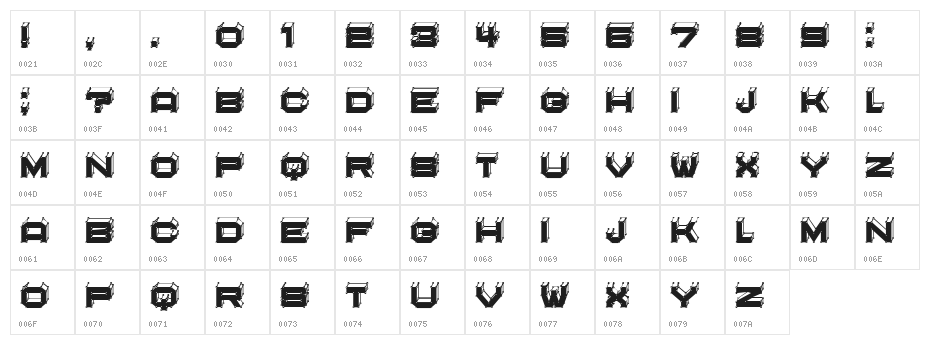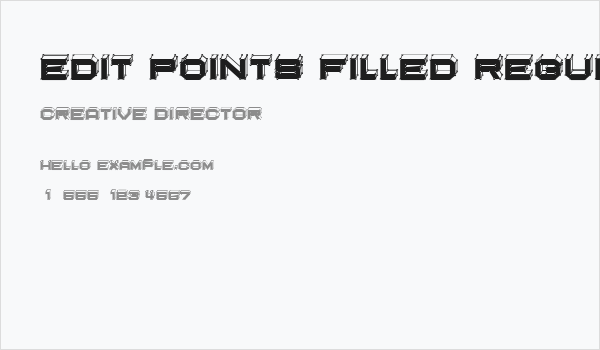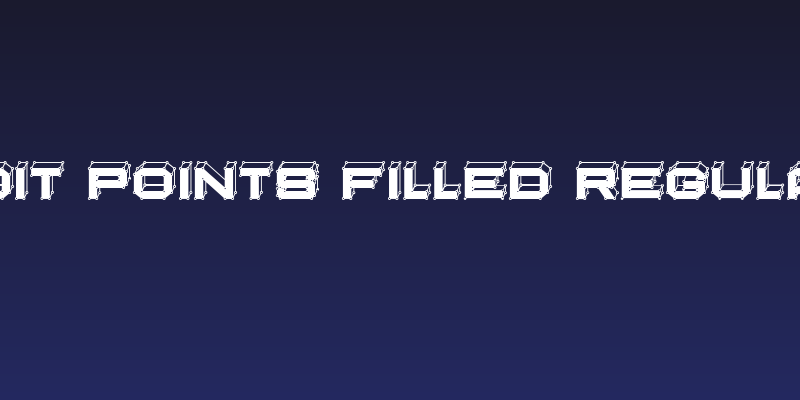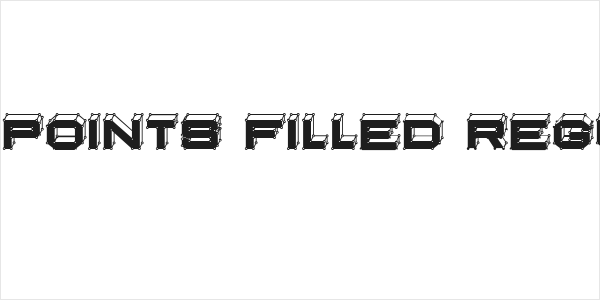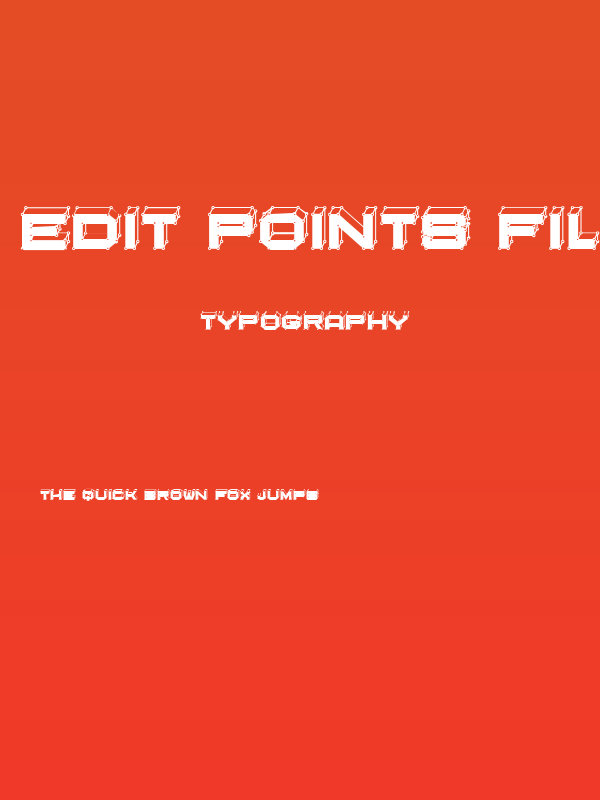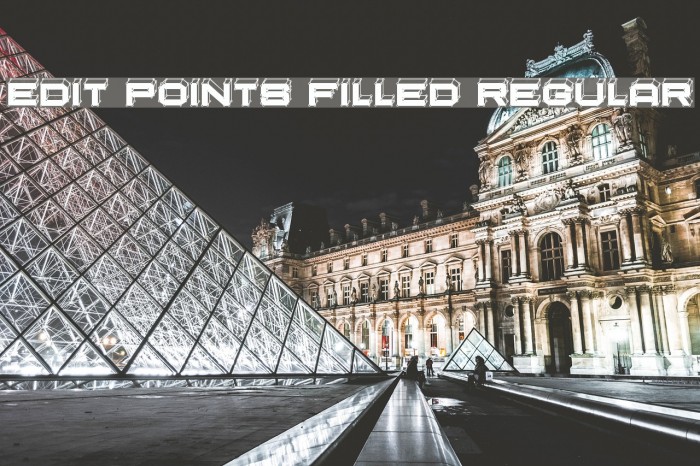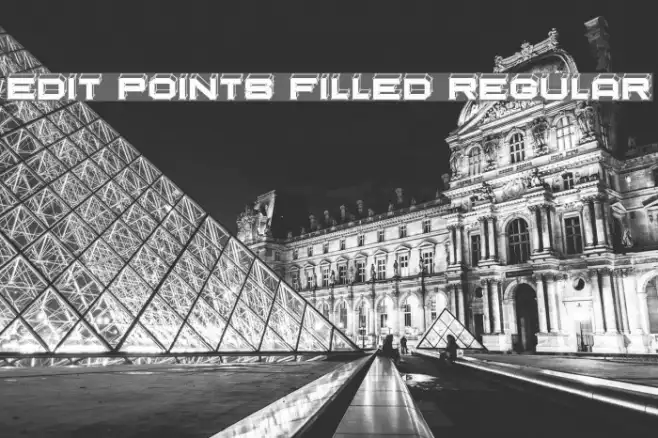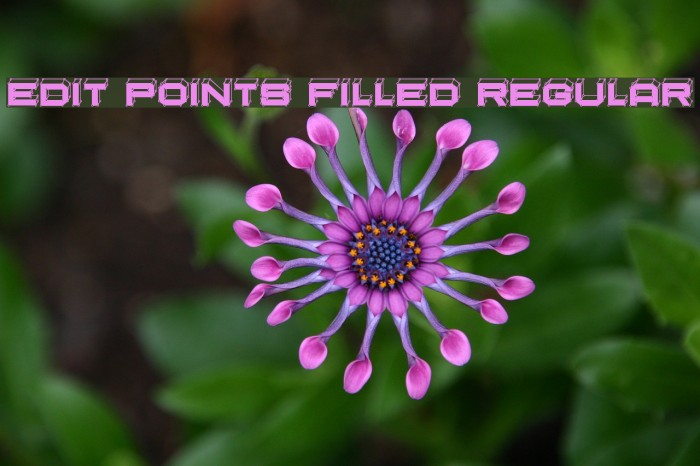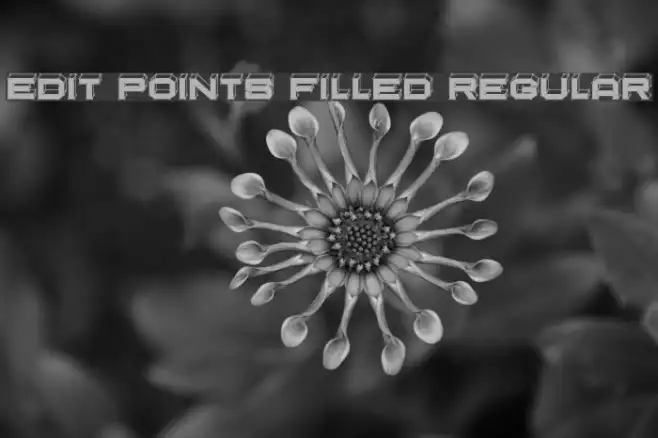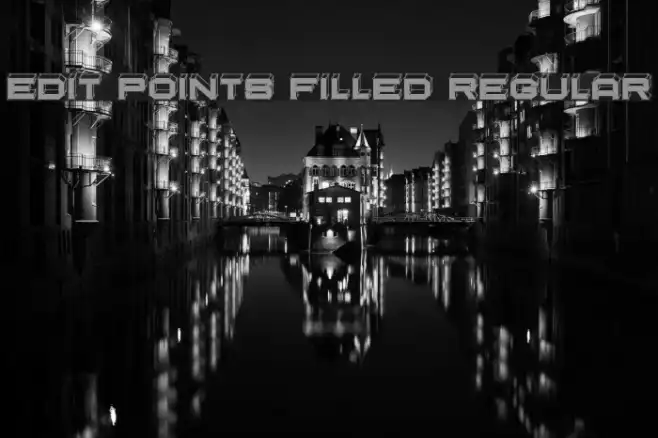
Edit Points Filled Regular Font
Edit Points Filled Regular Description
This font features a bold, geometric design with a distinct three-dimensional effect. Each character is constructed with sharp, angular lines and filled with a solid color, creating a striking contrast against the outlined edges. The font's style is reminiscent of digital or futuristic themes, making it ideal for projects that require a modern and edgy aesthetic. The uppercase and lowercase letters maintain a consistent style, while the numbers and special characters are equally bold and visually impactful. The overall appearance is both dynamic and structured, suitable for attention-grabbing headlines or logos.
| Proposed Projects | Ideal for digital designs, tech-themed projects, video game titles, and modern branding. |